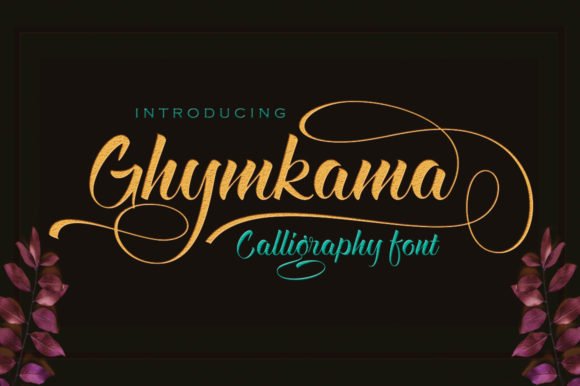
Introduction to Ghymkama Font
Ghymkama is a new elegant font with wide kerning, perfect for formal occasions.
Ghymkama is a new elegant font with wide kerning, perfect for formal occasions!
Key Features of Ghymkama Font
Why Choose Ghymkama Font?